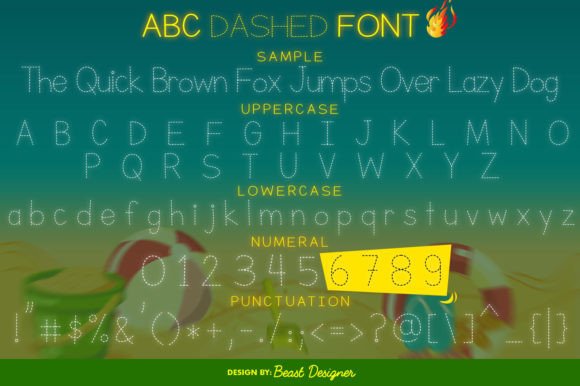
Unlock Effortless Writing with the ABC Dashed Font
Are you looking for an engaging and interactive way to enhance your writing skills or help young learners develop theirs? Look no further than the ABC Dashed Tracing Font. Designed specifically for beginners and young learners, this innovative font features helpful dashed lines that serve as friendly guides to make practicing writing a breeze.
The Benefits of the ABC Dashed Font
The ABC Dashed Font is more than just a stylish font – it’s a powerful tool for anyone looking to improve their handwriting. By providing a clear and easy-to-follow guide, this font helps users develop muscle memory and fine-tune their motor skills. Whether you’re just starting out or looking to refine your handwriting, the ABC Dashed Font is the perfect solution.
Features of the ABC Dashed Font
- Dashed Lines: The font’s dashed lines provide a gentle guide for users to follow, helping them stay on track and maintain proper letter formation.
- Easy to Read: The font is designed to be clear and easy to read, making it perfect for young learners and those who are just starting out.
- Interactive: The ABC Dashed Font is an interactive tool that makes practicing writing fun and engaging.
- Customizable: The font can be customized to fit your needs, allowing you to adjust the size and style to suit your writing practice.
Why Designers and Crafters Love the ABC Dashed Font
The ABC Dashed Font is not just a useful tool for individuals looking to improve their handwriting – it’s also a popular choice among designers and crafters. Here are a few reasons why:
- Unique and Creative: The ABC Dashed Font offers a unique and creative way to add a personal touch to your designs and crafts.
- Customizable: The font can be customized to fit your needs, allowing you to adjust the size and style to suit your project.
- Interactive: The font’s interactive nature makes it perfect for creating engaging and interactive designs and crafts.
| Font Name | Abc Dashed Font |
| Author | Beast Designer |
The ABC Dashed Font is an innovative and engaging tool that makes practicing writing fun and easy. Whether you’re a beginner, young learner, or experienced writer, this font is perfect for anyone looking to improve their handwriting. With its unique features, ease of use, and customizable design, the ABC Dashed Font is a must-have for designers, crafters, and anyone looking to master the art of writing neatly and accurately.